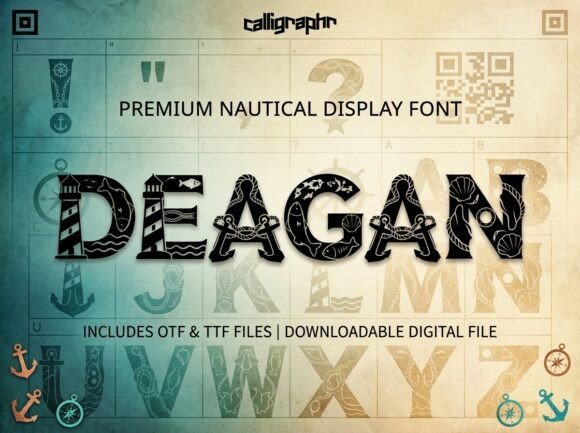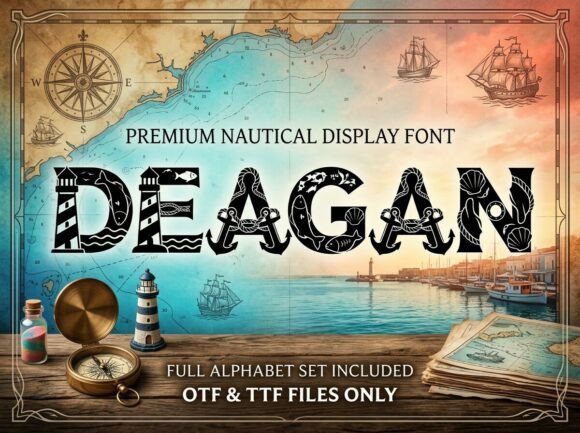
Discover the Majestic Deagan Font: A Maritime-Inspired Masterpiece
Are you ready to set sail for creative horizons? Look no further than the Deagan font, a monumental display typeface that embodies a “maritime-and-mythological” soul. This stunning font is characterized by massive, blocky letterforms that are uniquely adorned with intricate, hand-illustrated nautical scenes, making it the perfect choice for designers and crafters seeking to add a touch of luxury and sophistication to their projects.
The Inspiration Behind Deagan
The Deagan font draws inspiration from the rich history of seafaring folklore, bridging the gap between traditional maritime elements and modern luxury branding. Each character is meticulously crafted to incorporate nautical motifs, such as towering lighthouses, coiled ropes, anchors, fish, and seashells, which add a level of storytelling and depth to any design. This distinctive approach enables designers to create visually striking and memorable brand identities that evoke the mystery and allure of the ocean.
Design Features and Characteristics
Deagan’s design features a heavy structural weight that lends itself to high-impact applications, making it an ideal choice for display purposes. The font’s blocky letterforms are imposing and confident, while the intricate illustrations woven into each character add a level of whimsy and personality. The result is a typeface that exudes luxury, sophistication, and a deep connection to the maritime world.
Ideal Applications for Deagan
Deagan’s unique blend of maritime flair and luxurious personality makes it an excellent fit for a variety of design projects, including:
- Independent seafood restaurant identities: Add a touch of coastal charm and sophistication to your restaurant’s branding with Deagan’s majestic letterforms.
- Boutique coastal distillery logos: Create a memorable and luxurious brand identity for your craft distillery with Deagan’s distinctive nautical style.
- Premium beach resort signage: Make a statement with Deagan’s high-impact letterforms and evoke the luxury and relaxation of a coastal getaway.
- High-impact social media headers: Stand out on social media with Deagan’s eye-catching design and create a lasting impression on your audience.
Deagan offers a range of benefits for designers and crafters, including:
- Instant recognition: Deagan’s unique design ensures that your brand or project stands out from the crowd and leaves a lasting impression.
- Flexibility: The font’s versatility makes it suitable for a wide range of applications, from digital designs to print materials.
- Storytelling: Deagan’s intricate illustrations provide a rich narrative element, allowing designers to tap into the mythology and folklore of the sea.
In conclusion, the Deagan font is a game-changer for designers and crafters seeking to add a touch of maritime luxury and sophistication to their projects. Its unique blend of blocky letterforms and intricate nautical illustrations makes it an instant standout, while its versatility and storytelling potential ensure that it will leave a lasting impression on any audience. So why wait? Set sail for creative horizons with Deagan and discover a world of limitless design possibilities.